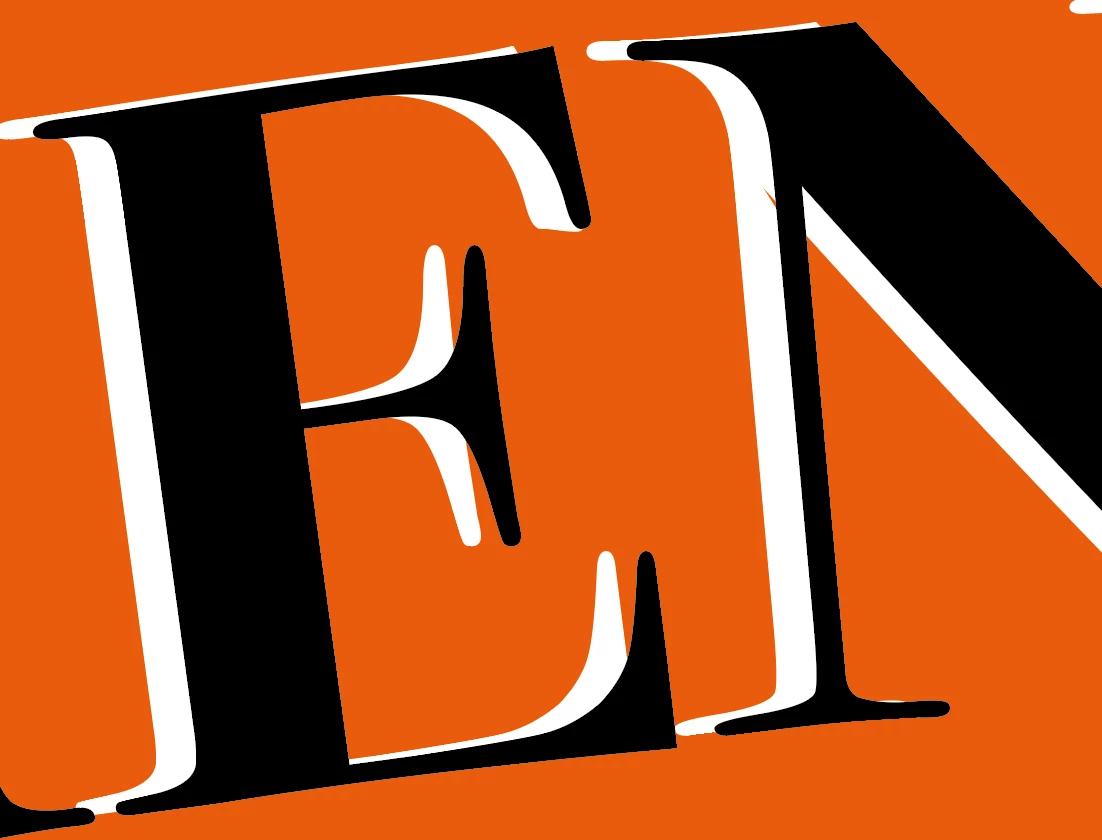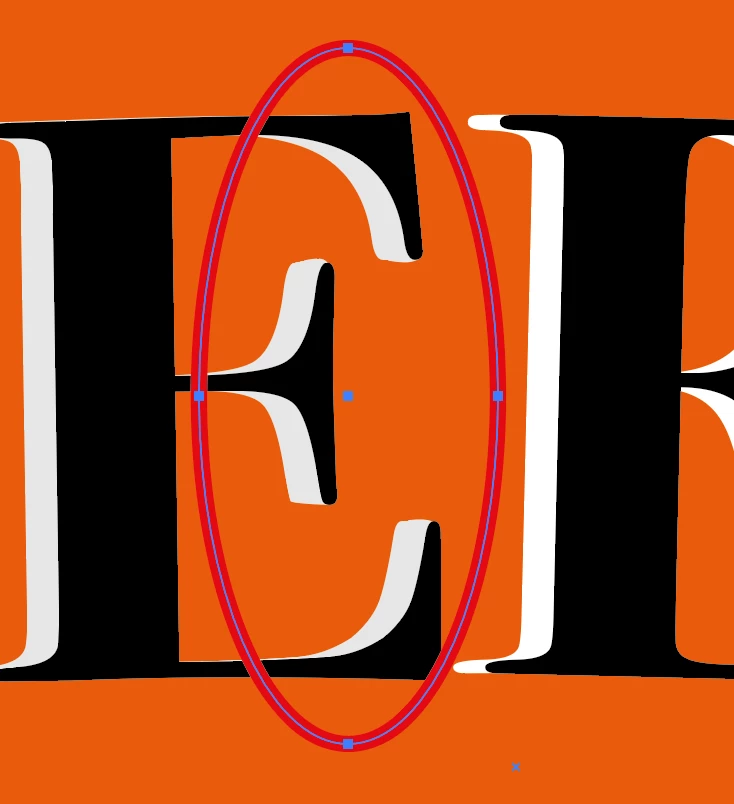
Creating an effective 3D fine Serif typeface
Can anyone help and please forgive me if this is basic to a lot of people but I'm painstakingly trying to create a 3d serif typeface that is too fine to work effectively using the 3D bevel and extrude option. I need the offset type to appear as flat white (diagram 2) but in 3D so there are no gaps between the serif of the serif in white and the serif in black (diagram 1). I have so many different versions to do for a client and am hoping there is an easy less painstaking way of doing this without it being so ridiculously time consuming. I just can't get a good effect from the 3D effect version of creating it. Please help! Thanks so much x